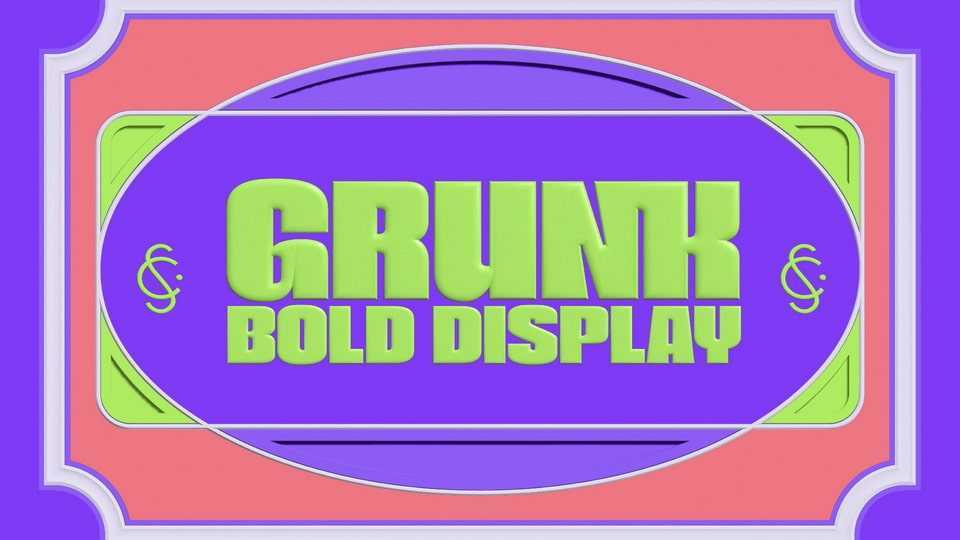
Download Grunk font, a bold display typeface for editorial or display projects, even for print media. Grunk font emphasizes some curved corners as a characteristic of the character.
Designer: Casloop Studio